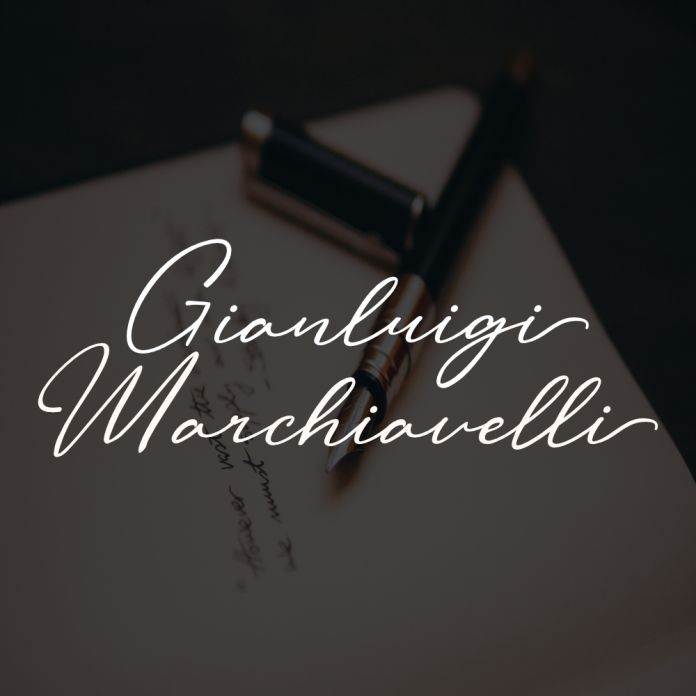
Gianluigi Marchiavelli is a fashionable and delicate script font. It has a clean, thin and smooth vibe and it will be a hit for any design that you want to add it to.